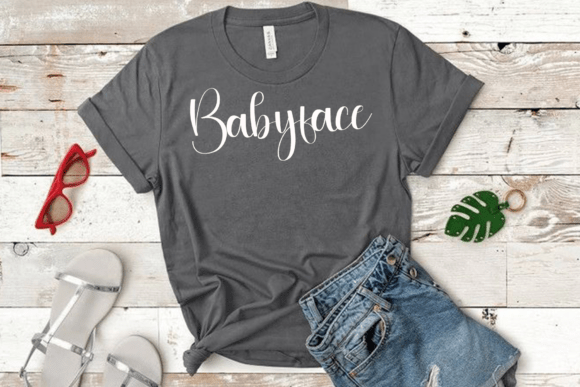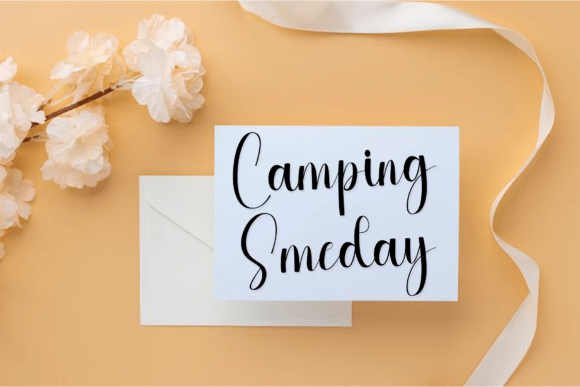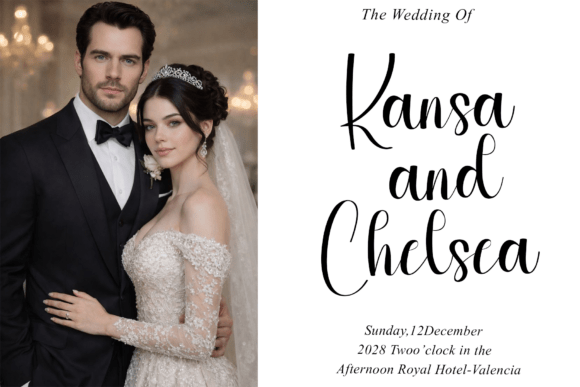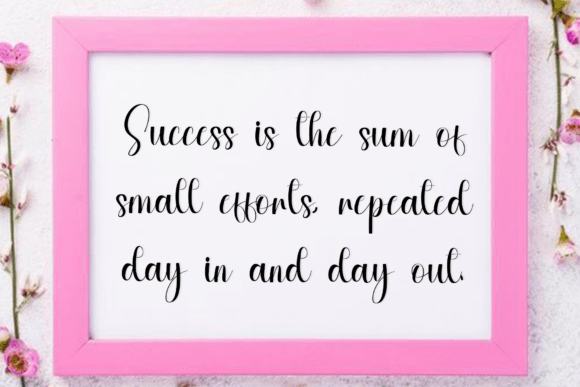
Introducing Hangout Font: Elevate Your Design with a Touch of Elegance
In the world of typography, a well-crafted font can make all the difference in elevating your design from ordinary to extraordinary. Meet Hangout Font, a unique and professional addition to the modern handwritten collection that is sure to captivate designers and crafters alike. With its tall, thin strokes and subtle, airy slant, Hangout Font exudes a sense of clarity and crisp elegance that is perfect for a wide range of design applications.
The Characteristics of Hangout Font
So, what sets Hangout Font apart from other fonts in its class? Here are a few key characteristics that make it a standout:
- Tall, thin strokes: Hangout Font features tall, thin strokes that give it a refined and sophisticated look. This makes it ideal for designs where you want to convey a sense of elegance and poise.
- Subtle, airy slant: The subtle slant of Hangout Font adds a touch of dynamism to your design, giving it a sense of movement and energy.
- Clean and approachable style: Despite its elegant appearance, Hangout Font is surprisingly approachable and easy to read. This makes it perfect for designs where you want to convey a sense of friendliness and approachability.
Use Cases for Hangout Font
So, what kinds of designs is Hangout Font best suited for? Here are a few ideas to get you started:
- Travel photography: Hangout Font is a perfect fit for travel photography, where you want to convey a sense of adventure and sophistication. Use it to add a touch of elegance to your photo captions or to create stunning title cards.
- Branding for outdoor gear: If you’re designing branding for outdoor gear, Hangout Font is a great choice. Its clean and approachable style makes it perfect for conveying a sense of ruggedness and reliability, while its elegant appearance adds a touch of sophistication.
- Sophisticated web design: Hangout Font is also a great choice for web design, particularly for sites that want to convey a sense of elegance and refinement. Use it to create stunning headings, titles, and other typography that will elevate your design to the next level.
Why Designers and Crafters Will Love Hangout Font
So, why will designers and crafters love Hangout Font? Here are a few reasons:
- Versatility: Hangout Font is incredibly versatile, making it perfect for a wide range of design applications. Whether you’re designing a logo, a brochure, or a website, Hangout Font is a great choice.
- Elegance: Hangout Font exudes elegance and sophistication, making it perfect for designs where you want to convey a sense of refinement and poise.
- Easy to read: Despite its elegant appearance, Hangout Font is surprisingly easy to read, making it perfect for designs where you want to convey a sense of friendliness and approachability.
In conclusion, Hangout Font is a unique and professional addition to the modern handwritten collection that is sure to captivate designers and crafters alike. With its tall, thin strokes, subtle, airy slant, and clean and approachable style, Hangout Font offers a refined aesthetic that feels as fresh as a mountain breeze. Whether you’re designing for travel photography, branding for outdoor gear, or sophisticated web design, Hangout Font is a great choice. So why not give it a try and see how it can elevate your design to the next level?